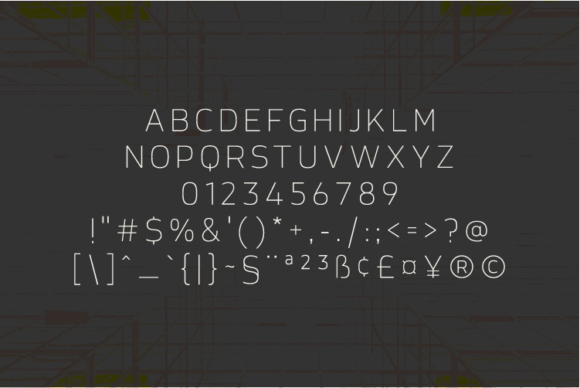
Introducing Arkqunie Thin Font: Elevate Your Designs with a Casual and Geometric Sans Serif Typeface
Are you on the hunt for a font that can add a touch of modernity and sophistication to your designs? Look no further than the Arkqunie Thin Font. This casual and geometric sans serif typeface is designed to provide maximum flexibility, making it perfect for a wide range of applications. From headlines and postcards to business cards, logos, and more, Arkqunie is the ultimate font for designers and crafters.
What Makes Arkqunie Stand Out?
Arkqunie’s unique features are what set it apart from other fonts. Each letter has been carefully crafted with special features in every corner, making it perfect for adding a touch of personality to your designs. The font’s geometric sans serif design ensures that it remains clean and modern, while its casual feel makes it approachable and friendly.
One of the best things about Arkqunie is its versatility. This font can be used for a wide range of applications, including:
• Headlines: Add a touch of modernity to your headlines with Arkqunie’s clean and geometric design.
• Postcards: Create eye-catching postcards that grab attention with Arkqunie’s unique features.
• Business Cards: Make a lasting impression with Arkqunie’s professional and modern design.
• Logos: Create a memorable logo that stands out from the crowd with Arkqunie’s geometric sans serif design.
• Letterheads: Add a touch of sophistication to your letterheads with Arkqunie’s clean and modern design.
• Magazines: Use Arkqunie to add a touch of personality to your magazine designs.
• Posters: Create eye-catching posters that grab attention with Arkqunie’s unique features.
Why Choose Arkqunie?
There are many reasons why Arkqunie is the perfect font for designers and crafters. Here are just a few:
• Flexibility: Arkqunie is designed to be flexible, making it perfect for a wide range of applications.
• Uniqueness: Arkqunie’s special features in every corner of each letter make it truly unique.
• Modernity: Arkqunie’s geometric sans serif design ensures that it remains modern and clean.
• Approachability: Arkqunie’s casual feel makes it approachable and friendly.
Tips for Using Arkqunie
Here are a few tips for getting the most out of Arkqunie:
• Experiment with different sizes: Arkqunie looks great in a variety of sizes, from large headlines to small body text.
• Play with different colors: Arkqunie’s geometric design looks great in a variety of colors, from bold and bright to subtle and muted.
• Use it with other fonts: Arkqunie pairs well with a variety of other fonts, making it perfect for creating unique and interesting typography.
Font Name Arkqunie Thin Font
Author Nan Design